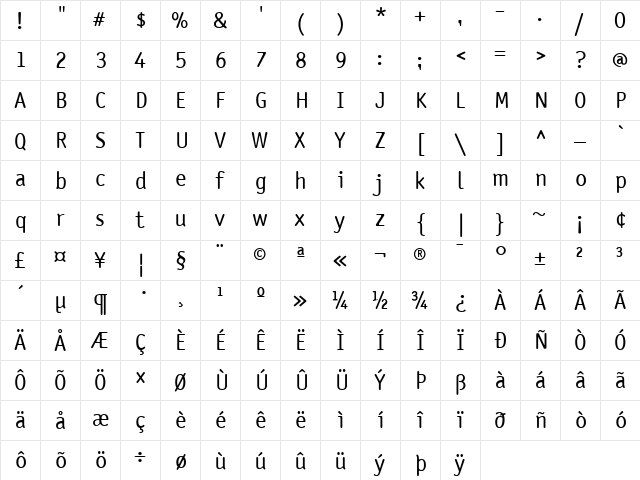
SaturdaySansICG Medium
Design Context for SaturdaySansICG Typeface
SaturdaySansICG offers clean, dependable letterforms without strong stylistic allegiance, making it a practical choice for designers who need flexibility.